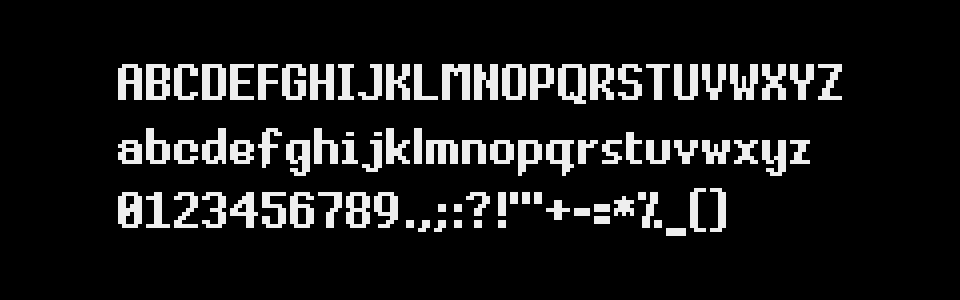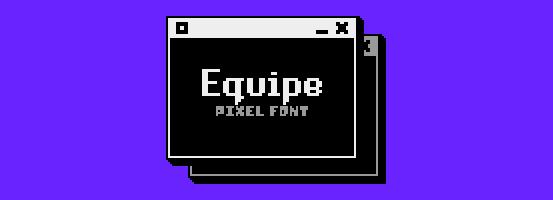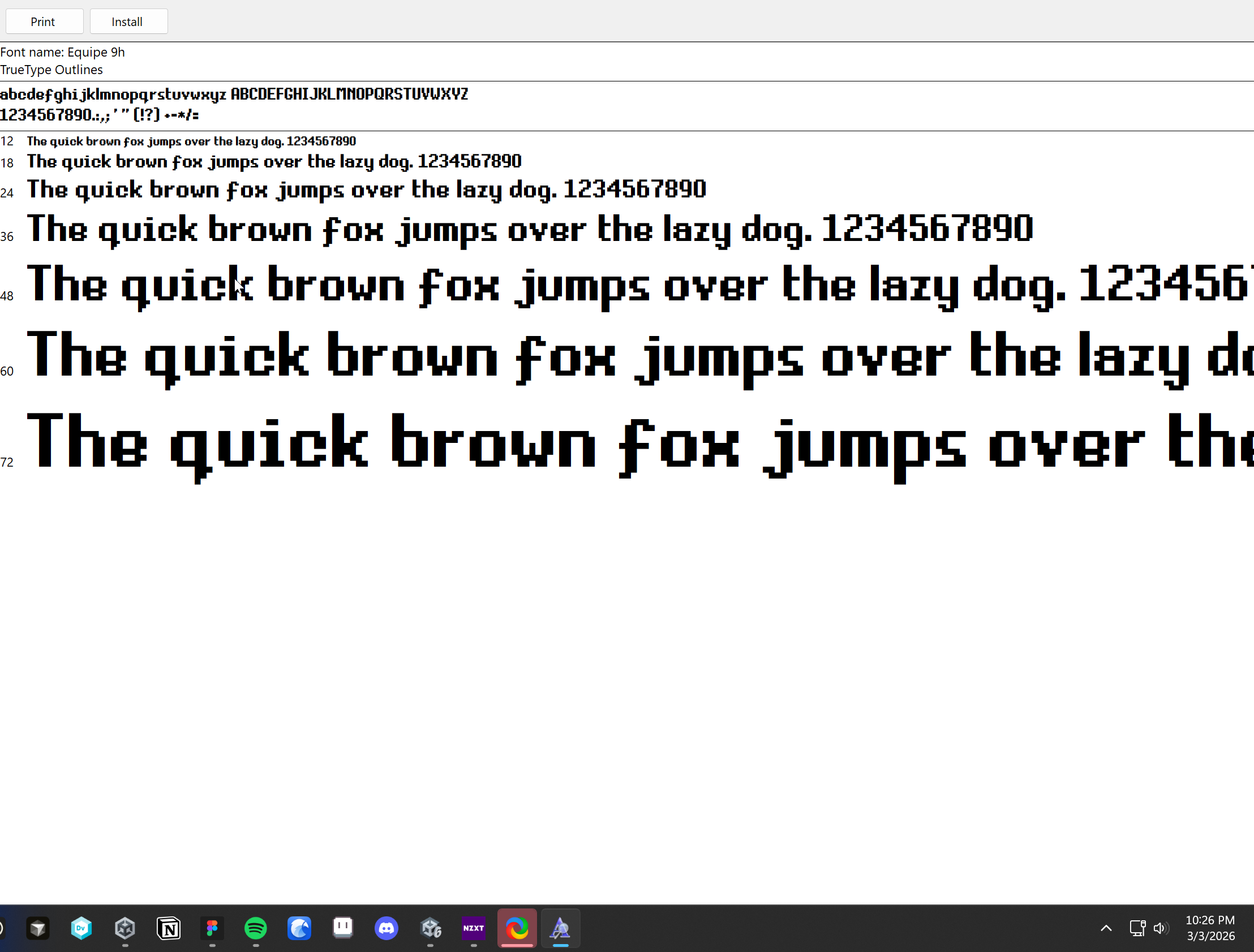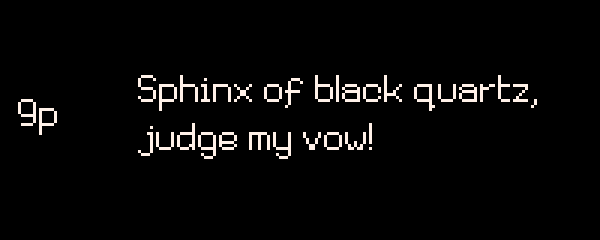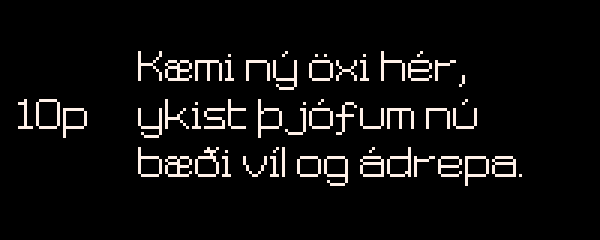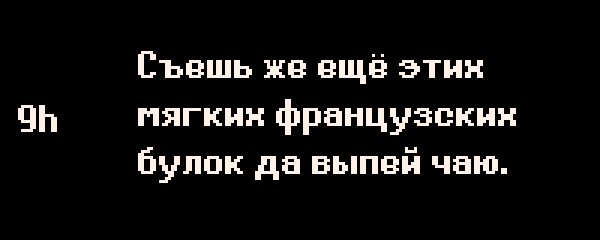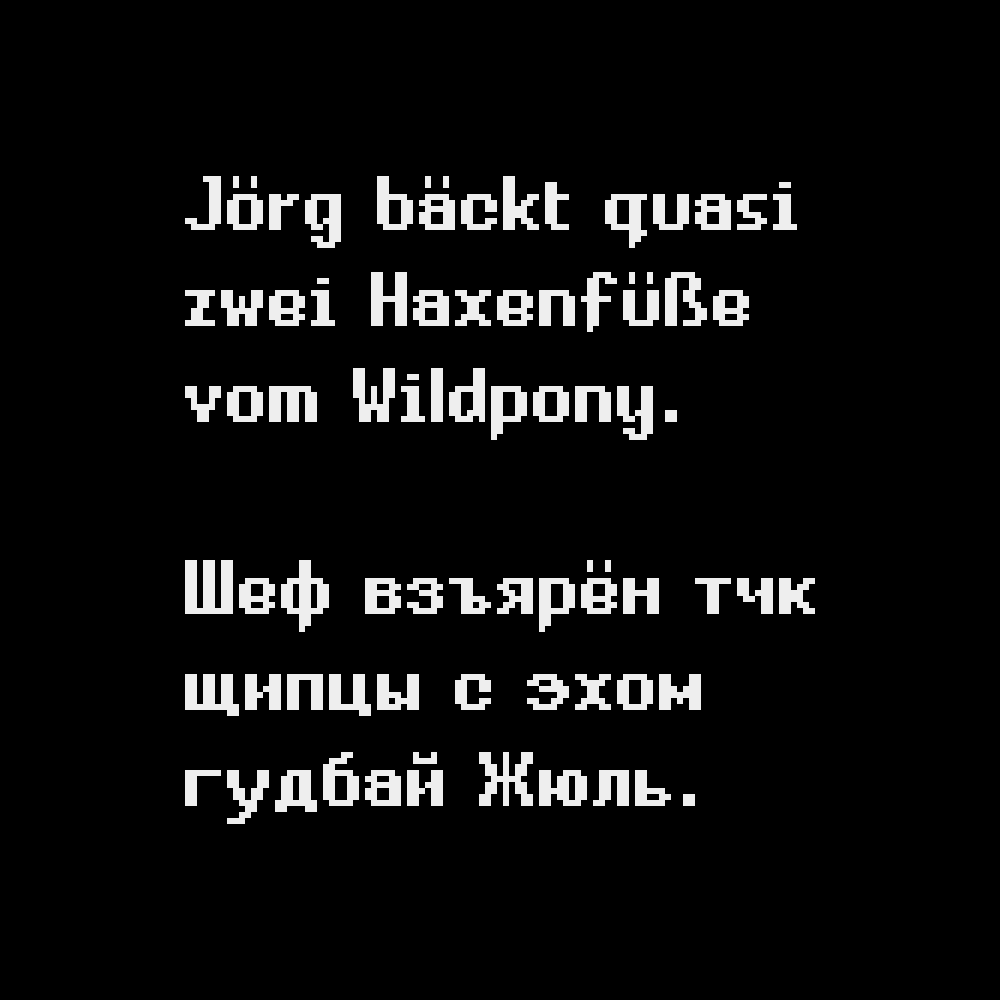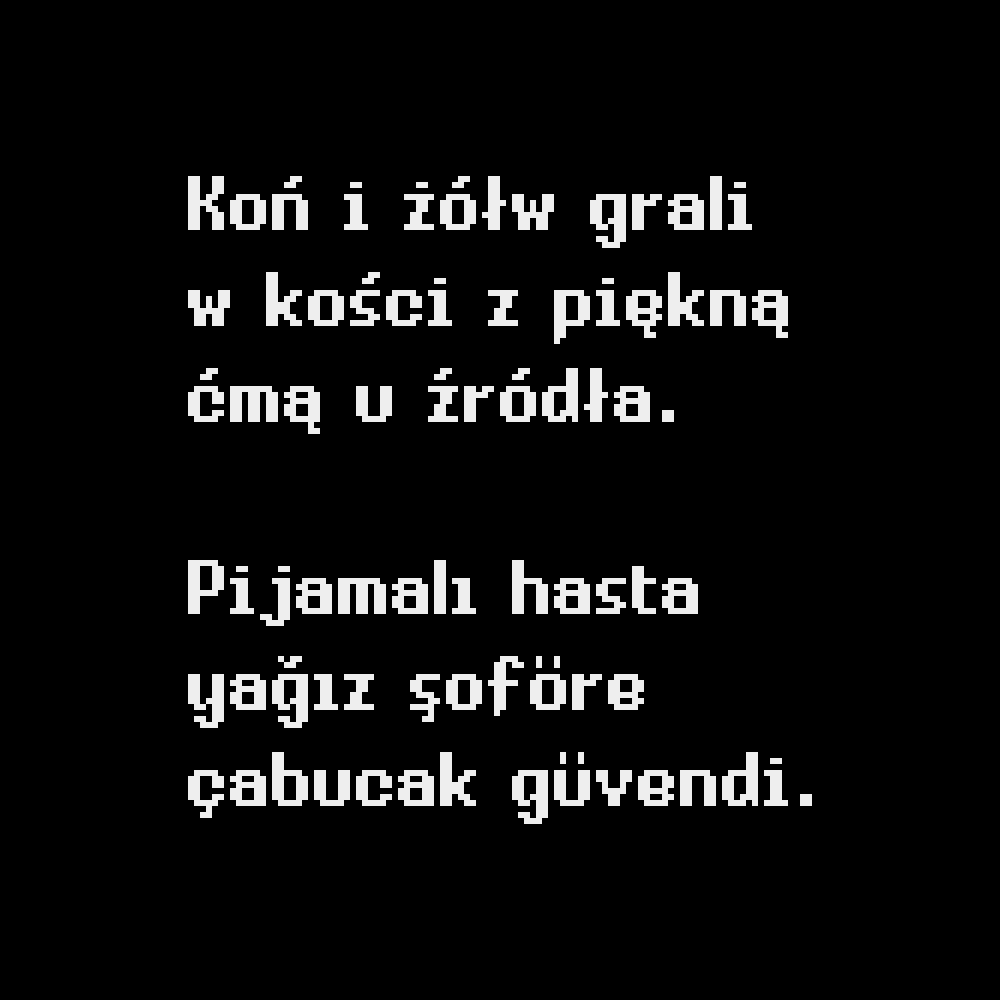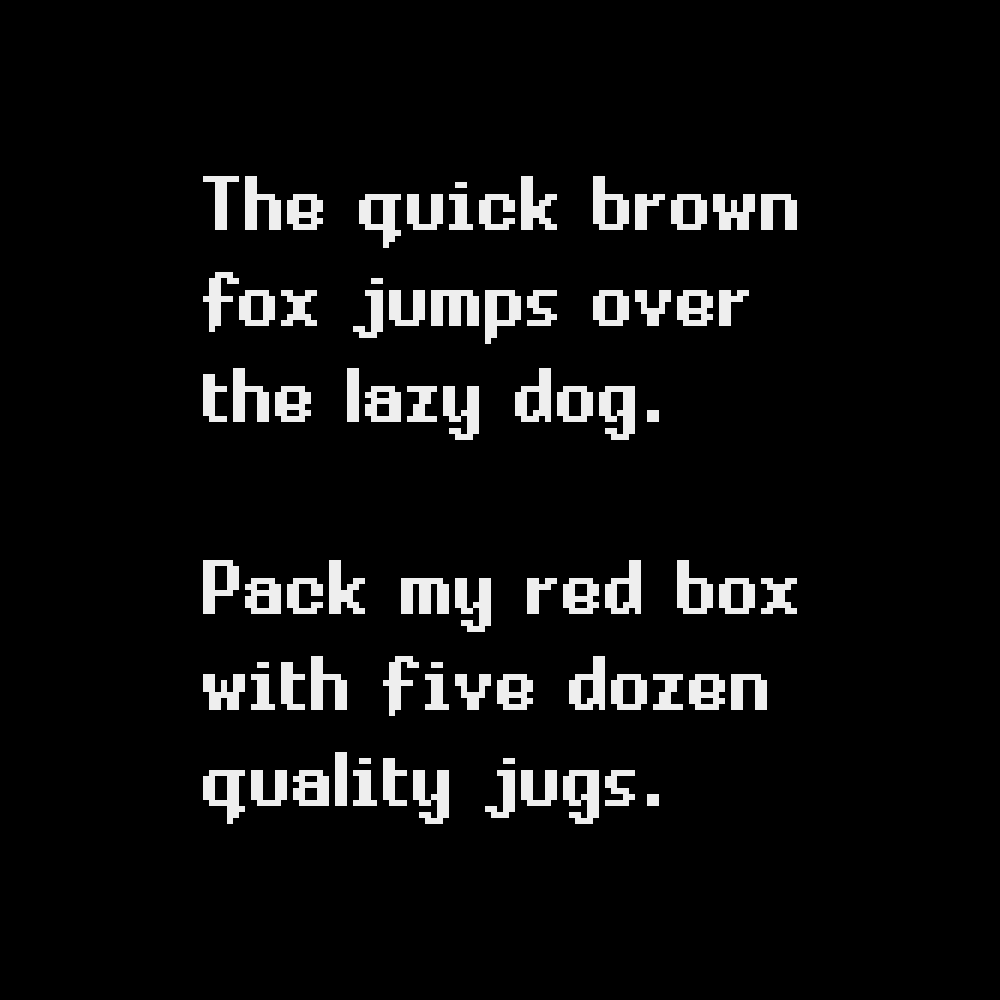
Pixel Font - EQUIPE
A downloadable pixel font
Equipe is a stylish, graceful, 9px tall pixel font!
Full Character Set:
ABCDEFGHIJKLMNOPQRSTUVWXYZ
abcdefghijklmnopqrstuvwxyz
0123456789.,;:?!"'+-=*%_()
[]{}~#&@©®™°^`|/\<>…€$£¢¿¡“”‘’«»‹›„‚·• ÀÁÂÄÃÅĄÆÇĆÐÈÉÊËĘĞÌÍÎÏİŁÑŃÒÓÔÖÕŐØŒŚŞẞÞÙÚÛÜŰÝŸŹŻàáâäãåąæçćðèéêëęğìíîïıłñńòóôöõőøœśşßþùúûüűýÿźżАБВГҐДЕЁЄЖЗИІЇЙКЛМНОПРСТУФХЦЧШЩЪЫЬЭЮЯабвгґдеёєжзиіїйклмнопрстуфхцчшщъыьэюя
Supported languages:
English, French, Italian, German, Spanish, Portuguese, Danish, Swedish, Norwegian, Icelandic, Hungarian, Polish, Turkish, Russian, Ukrainian…
new! v2: font redesign, added support for more languages.
v1.1: old version (in 4 different sizes).
I am confused we bought this font thinking there was a built in stroke/outline and when we opened it, its doesn't have one, this looks very different from whats on here
Hi there! Outilnes and shadows have to be implemented in your game engine. I just sent an email with more info.